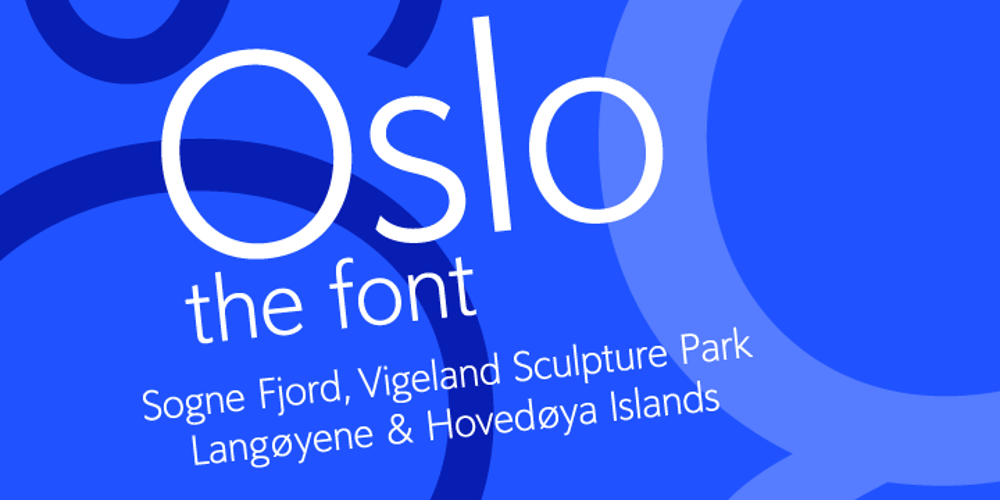
Oslo
Oslo font
Oslo Font Family was designed by Robbie de Villiers and published by Wilton Foundry. Oslo contains 8 styles and family package options. Oslo is an understated sans with subtle qualities that make it appropriate for many applications. It is simple, clean and very legible.